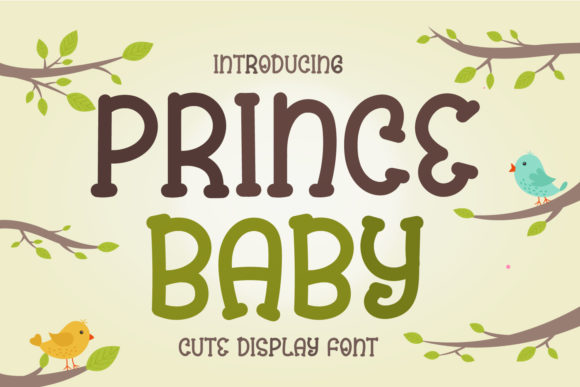
Calling all design enthusiasts and creative masterminds! Introducing the Prince Baby Font, the ultimate display font for injecting a dash of playful charm into your creations.
Prepare to be mesmerized by its adorable and joyful vibes, perfectly suited to bring life to kids' books, whimsical posters, and captivating social media designs. This font exudes a childlike innocence and a touch of whimsy, making it the perfect choice for any project that seeks to evoke a sense of wonder and imagination.
Prince Baby's enchanting personality stems from its irresistible round letters. Each character dances and twirls before your eyes, creating a visual symphony that is both eye-catching and utterly irresistible. Whether you're crafting an enchanting children's book or a playful poster, this font promises to make your designs radiate with warmth and creativity.
But wait, there's more! Prince Baby's versatility knows no bounds. It seamlessly adapts to a kaleidoscope of design styles, from whimsical illustrations to bold headlines. Its inherent charm shines through, adding a touch of magic to every project it graces.
So why settle for ordinary when you can embrace the extraordinary? Let Prince Baby Font transport your designs to a realm of boundless creativity and joy. Its playful spirit and undeniable cuteness are guaranteed to leave a lasting impression on your audience, captivating their hearts and inspiring endless possibilities.
Indulge in the magic of Prince Baby Font today and unlock a world of design wonders! Let your imagination soar and create designs that ignite joy and make a lasting impact.